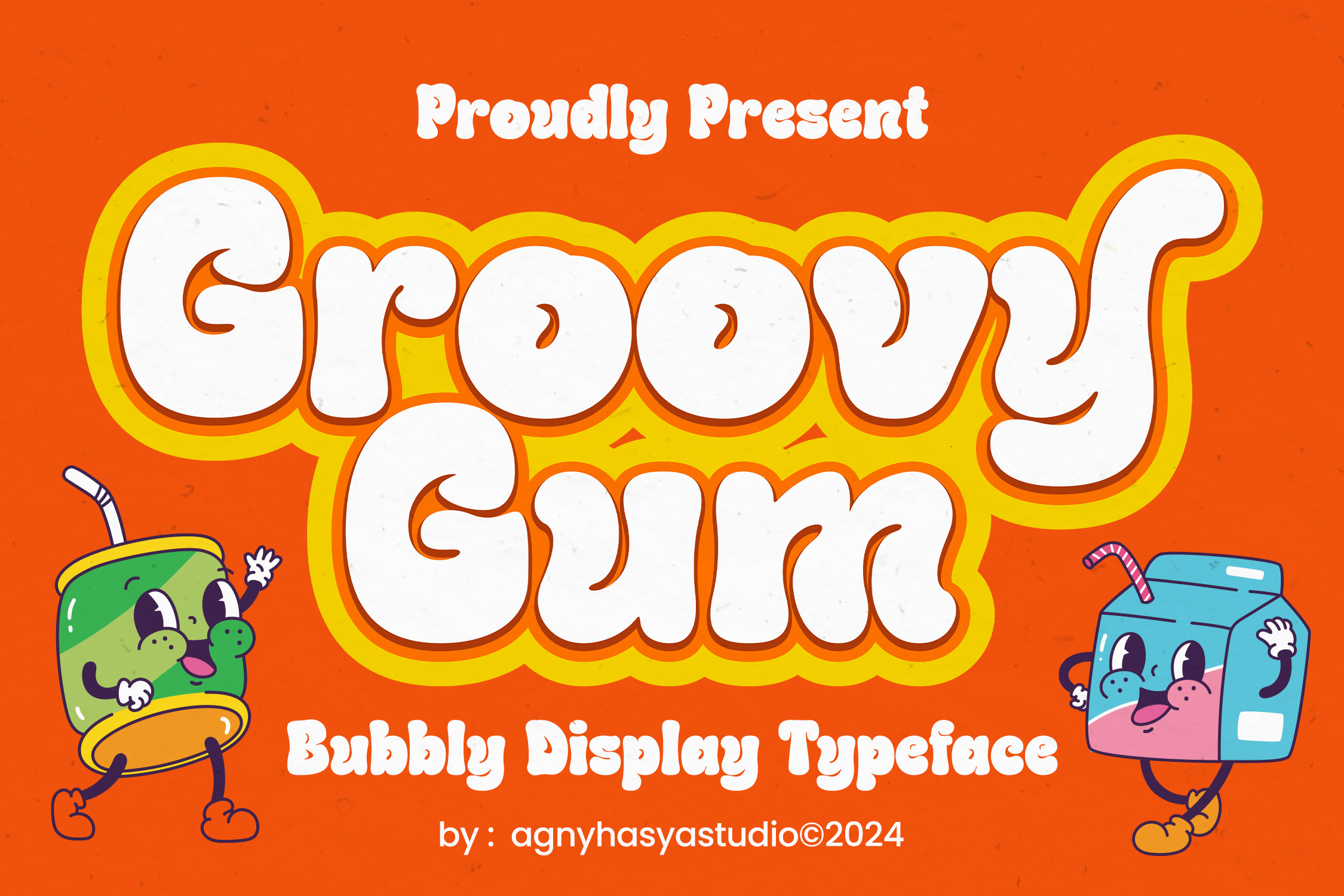
Groovy Gum - A Bubbly Display Font
Introducing Groovy Gum A Playful, Groovy, and Bubbly Display Typeface. It Comes in 2 (Two) Styles (Regular & Slant) and Is Created With Some Alternate and Ligature. Featured With PUA Unicode, Uppercase and Lowercase, Numeral and Punctuation, Multilingual Support, Created With Alternate and Ligature.
It’s Perfect for Your Design Projects Such as Logos, Advertising, Branding, Posters, Banners, Product Designs, Art Quotes, Special Events, Product Packaging, and More.